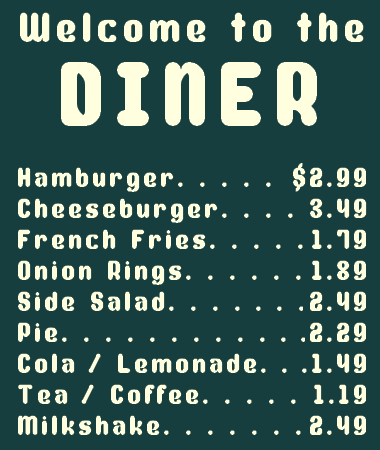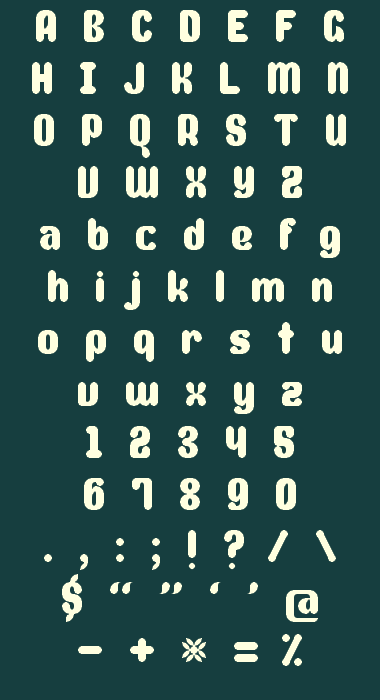
Love it. Some really inventive glyph building going on here that's produced a typeface full of flavor. Love the '3'. I'll take an order of rings and a Milkshake, please.
That's absolutely great and just so readable ... I can almost hear the sizzle of the griddle.
We have both come out with a round ended design on the same day ... but your definitely wins, especially in the characterfulness stakes :)
I've been doing a lot of large-grid stuff lately and it was fun to do something on a small scale.
Nice use of the shapes. Great job! :)
My only instant reservation is that the W looks too much like an upside down M.
Nice job! very readable.
Thanks Youssef. The W was different originally, and for some reason I changed. After your comment, I decided to change it back.
I move the old W the |.
I can see why you're swithering over the w. Both forms have just about equal whimsical charm.
Congratulations on such a handsome result with only a handfull of bricks. Bet you were pleased with the k and x.
Actually I was rather unsure about the k and x. I mean, I think they're good enough by themselves, but I didn't know how well they fit in here. Ultimately, I couldn't do much else to them with the bricks I had available.
My personal faves are the Q, S, a, e, m, n, s, and 3.
this is great. simple and effective. minimal brick usage. maximum impact. nicely retro and very contemporary :)